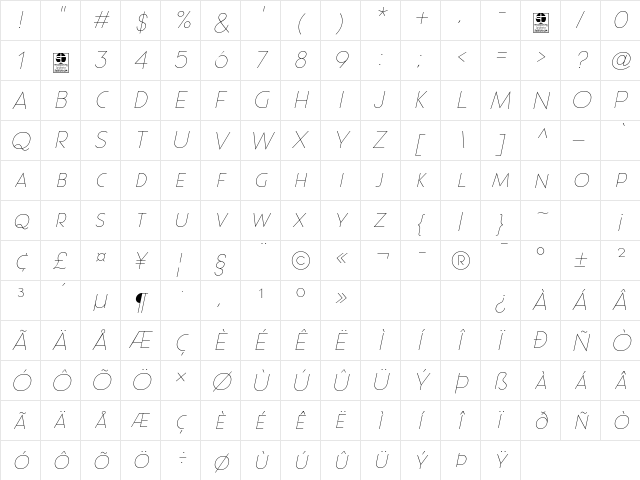
Pages Grotesque Thin Demo Italic Font Preview
| Foundry | StudioTypo |
| Designer | Mehmet Abac |
Design Context for Pages Grotesque Thin Demo Typeface
Pages Grotesque Thin Demo takes a measured approach to typography — its balanced proportions and neutral character make it a reliable workhorse for both digital and print work. The dynamic lean of this cut emphasises speed and emphasis in any layout. Its slender proportions lend an understated elegance to any composition.